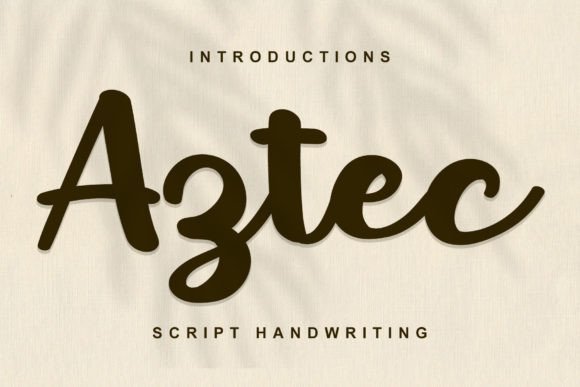
Unleash the Enchanting Aztec Font: Where Haunting Beauty Meets Timeless Elegance
Journey into the realm of darkness and intrigue with the Aztec Font, a masterpiece of script typography that spells mystery and charm. Its exquisitely crafted characters evoke the ancient spirits of forgotten civilizations, whispering tales of old and beckoning you to explore the depths of your creativity.
Indulge in an extraordinary font that transcends time, combining the allure of the past with the freshness of the present. From spellbinding logos and captivating posters to enchanting invitations and spine-tingling book covers, Aztec Font casts a spell on your designs, leaving an indelible mark on the beholder's soul.
Embrace the Allure of Aztec: A Dark and Enticing Script Font
Immerse yourself in the intricate beauty of Aztec Font, a script font woven from the threads of shadows and moonlight. Its elegant curves and sweeping strokes dance across the page, captivating the senses and conjuring visions of haunted castles, moonlit forests, and mystical creatures.
With its hauntingly beautiful style, Aztec Font breathes life into your words, transforming them into captivating whispers and spine-tingling secrets. Use it to craft spellbinding quotes, intriguing headlines, or enchanting branding that will leave a lasting impression on your audience.
Invoke a Sense of Mystery and Wonder
Enter a world of wonder and awe as Aztec Font casts its enchanting spell on your designs. Its unique and alluring characters inspire creativity, urging you to explore the dark corners of your imagination and bring forth creations that ignite the senses and stir the soul.
Let Aztec Font guide you through the enchanted forests of your mind, where inspiration flows freely and your imagination knows no bounds. Cast your words in the ethereal glow of Aztec Font and watch as they transform into enchanting spells, casting a web of intrigue and leaving your audience spellbound.
Dare to be Different: Embrace Aztec's Dark and Alluring Charm
Break free from the mundane and embrace the extraordinary with Aztec Font. Its distinctive style sets you apart from the crowd, allowing you to create designs that radiate uniqueness and intrigue. Whether you're crafting branding for a horror-themed business, designing posters for a haunted house event, or creating invitations for a masquerade ball, Aztec Font adds an air of sophistication and elegance to any project.
Experience the Beauty of PUA Encoding
Unleash the full potential of Aztec Font with its PUA encoding, granting you effortless access to a world of glyphs and swashes. Explore the hidden depths of this font, where intricate details and captivating embellishments await your discovery.
With PUA encoding, you have the power to create designs that transcend the ordinary and delve into the realm of the extraordinary. Let your creativity soar as you incorporate these hidden treasures into your work, adding an extra layer of magic and enchantment to every project.